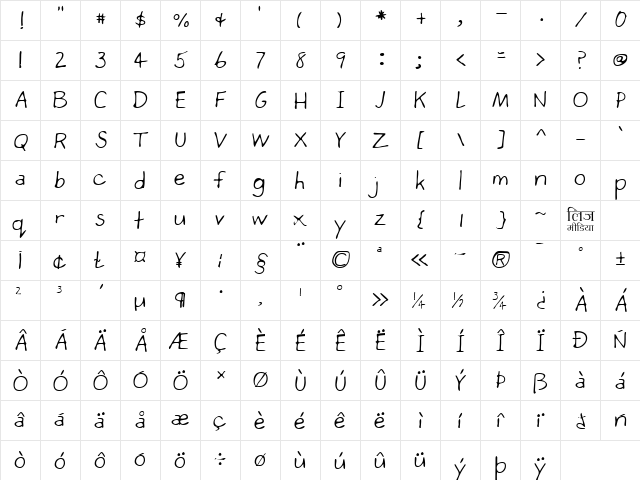
LEHN271 Regular
Design Context for LEHN271 Typeface
LEHN271 takes a measured approach to typography — its balanced proportions and neutral character make it a reliable workhorse for both digital and print work.